Lift Type
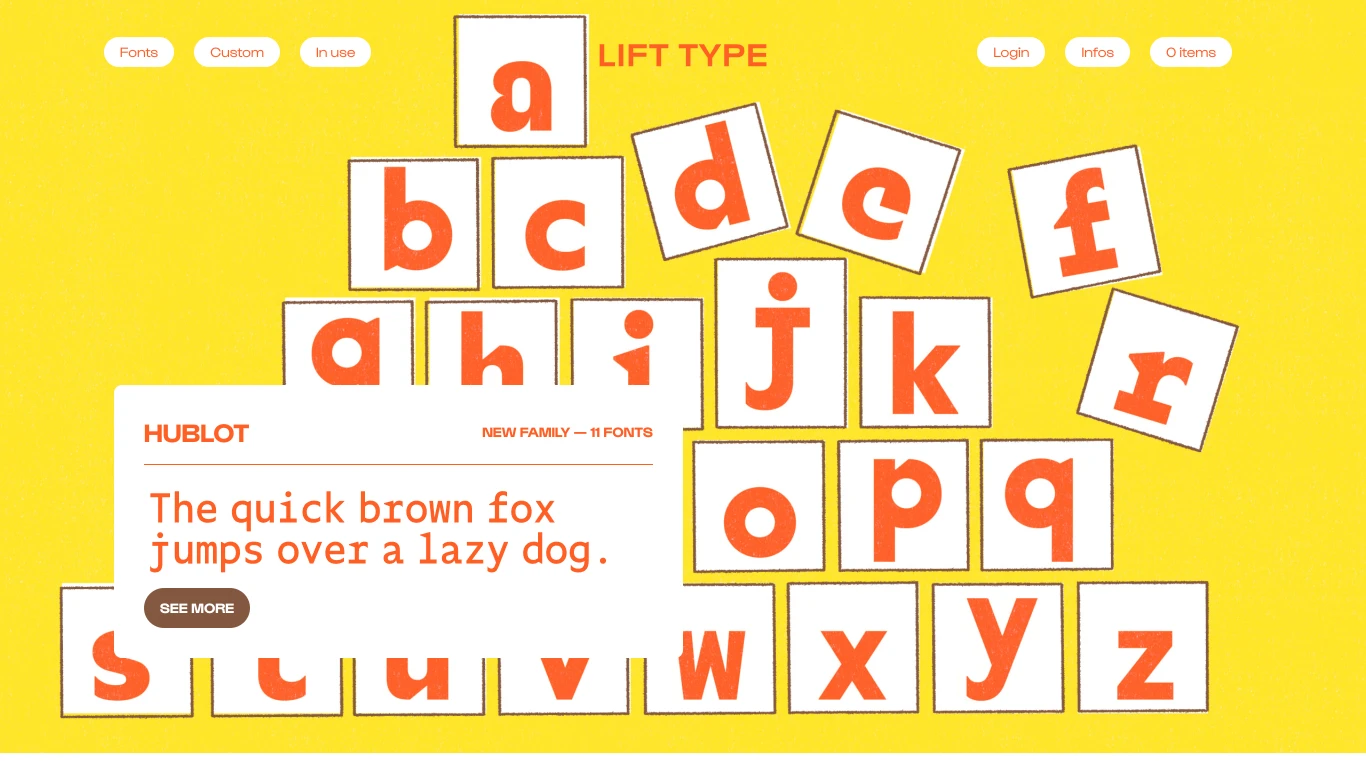
France
2014
Lift Type is an independent type foundry based in Montpellier, France, founded in 2014 by Romain Oudin. The studio offers both retail and custom fonts, occasionally releasing limited-edition typefaces for special events. Notable typefaces include Ace (2016), inspired by tennis, Gustavo (2018), a geometric sans-serif, and Mint Grotesk (2020), a versatile grotesk family. Clients include Submarine Festival, Staatstheater Braunschweig, and Let’s Eat Grandma.